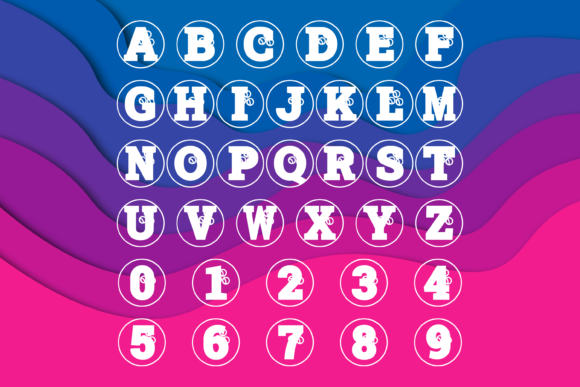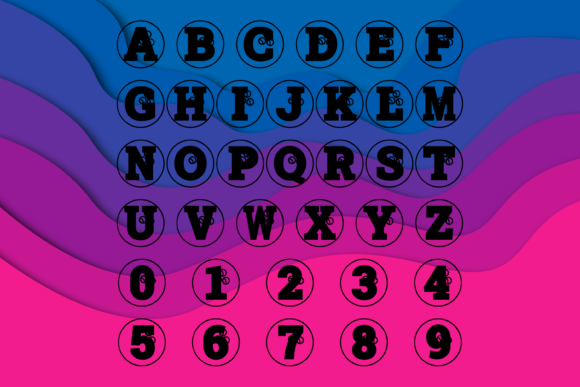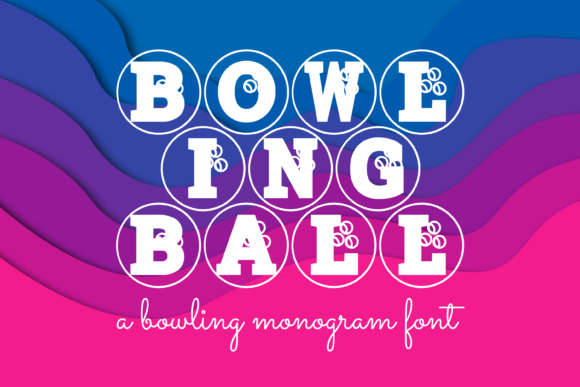
The Unforgettable Charm of Bowling Ball Font
I still remember the time I was working on a project for a client who wanted a custom logo that screamed fun and playfulness. I had been searching for the perfect font for hours, but nothing seemed quite right. That’s when I stumbled upon the Bowling Ball font. It was love at first sight! The quirky, bouncy letters instantly captured the essence of what my client was looking for. In that moment, I knew I had found the perfect fit.
An Honest Review of Bowling Ball Font
• ✨ Unique and playful design that’s sure to grab attention
• ✅ Highly versatile and can be used for a wide range of projects, from custom designs to DIY crafts
• 💡 Perfect for adding a touch of whimsy and personality to any creation
• 🎉 Great for titles, headings, and emphasis text
While Bowling Ball font is an amazing choice for many projects, there are a few things to keep in mind:
• 🤔 May not be the best choice for body text or long paragraphs, as it can be a bit difficult to read
• ⚠️ Some letters may appear a bit distorted or irregular, which can be a deliberate design choice but may not be suitable for all projects
The Story Behind Bowling Ball Font
The Bowling Ball font was designed with one goal in mind: to create a fun, playful font that captures the spirit of creativity and playfulness. The designer, inspired by the nostalgia of bowling alleys and retro arcade games, set out to create a font that’s both whimsical and eye-catching.
Q: What type of projects is Bowling Ball font best suited for?
A: Bowling Ball font is perfect for custom designs, DIY crafts, titles, headings, and emphasis text. It’s also great for projects that require a playful, whimsical touch.